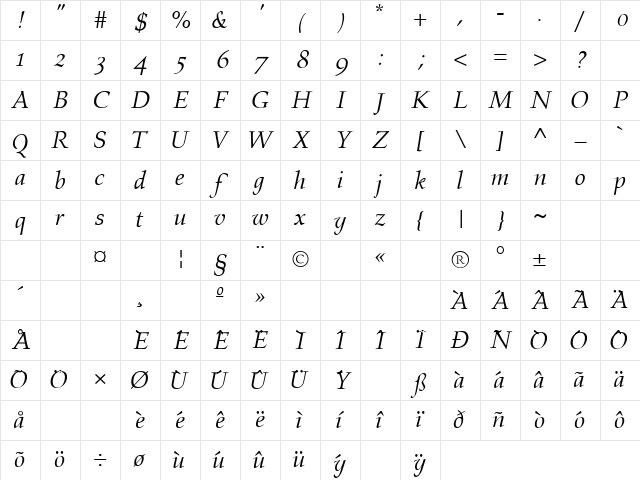
Prospero OldstyleItalic Free Font
Prospero OldstyleItalic
Style: OldstyleItalic
Design Context for Prospero
Prospero carries the refined structure of traditional serif typography, with bracketed terminals and considered proportions that communicate credibility and craft. The slanted form adds forward momentum and visual energy.
Pro Tip: Use Prospero for editorial body copy and considered headline work. Pair with a neutral sans for UI elements or captions to create a classic hierarchy.